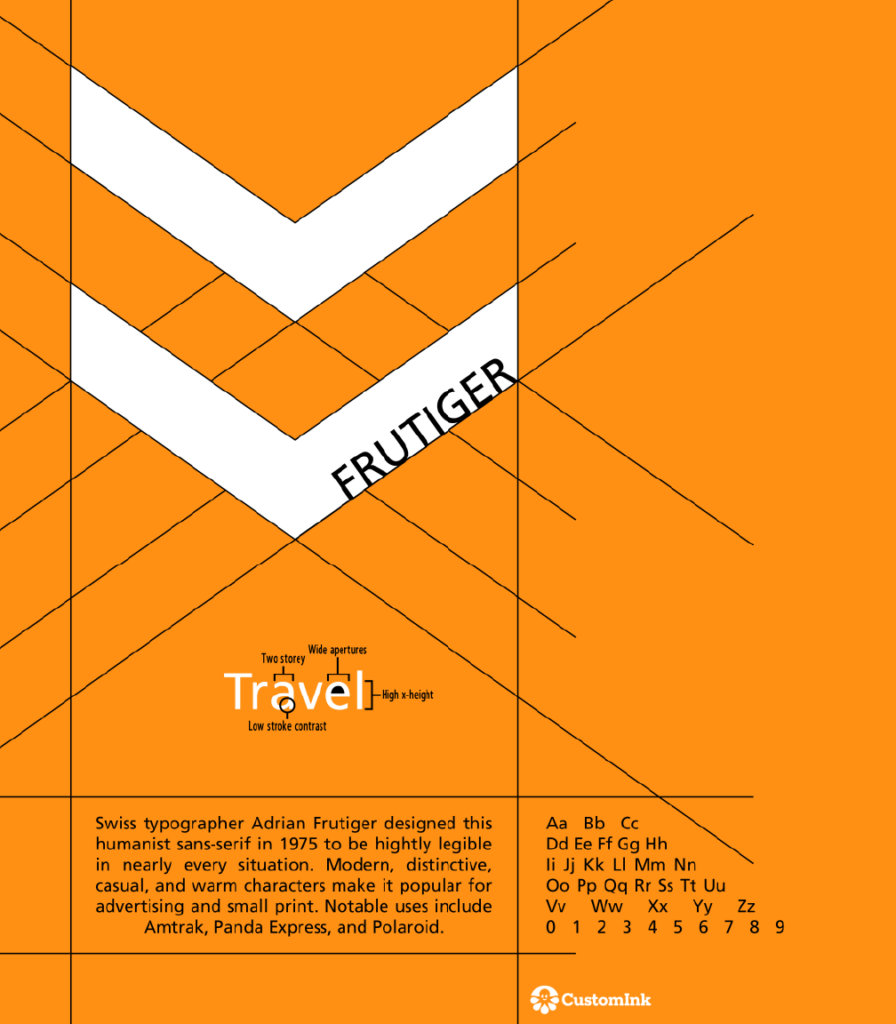
Font of the Week – Frutiger
FOTW Frutiger
Swiss typographer Adrian Frutiger was commissioned by the airport in Paris to create new signage for directional purposes. It was important to create a highly legible font for the airport to use, and thus Frutiger was born! Frutiger’s modern yet casual look has made it a favorite for companies like Amtrak, Panda Express, and Polaroid.